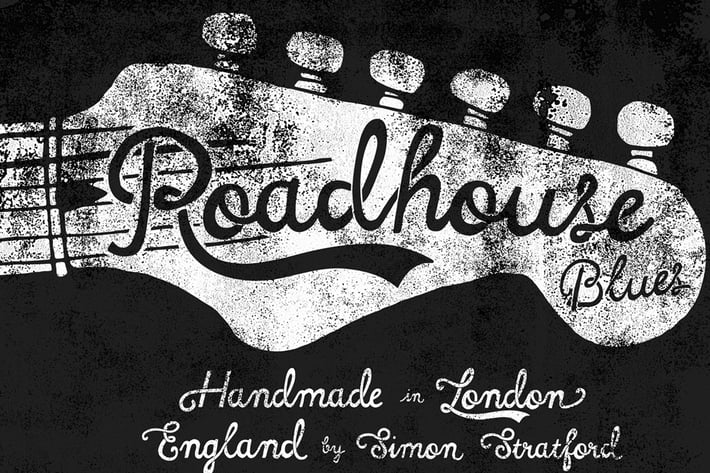
Roadhouse blues font
Roadhouse Blues is a handmade script typeface with swashes and alternative glyphs that make it look more realistic and natural.
It has a naive quality that gives it a kind of innocence. It's decorative swashes give it a friendly retro vibe that harks back to an early American style when everything was hand made.
Opentype features
The lowercase glyphs have 3 contextual alternatives. Each letter has a start, middle and end letter that have a subtle difference. If you enable contextual alternatives they will be automatically changed as you type.
The uppercase letters have a start and end swash that are also automatically changed if you enable swashes.
Both upper and lowercase characters have a generous sprinkling of stylistic alternatives that can be accessed via your glyphs panel in your design application.
Font Usage
In my examples, I've used Roadhouse Blues in a serious way but it could be used for casual designs like illustrations, invites, packaging, logos stationary, fashion and many others.